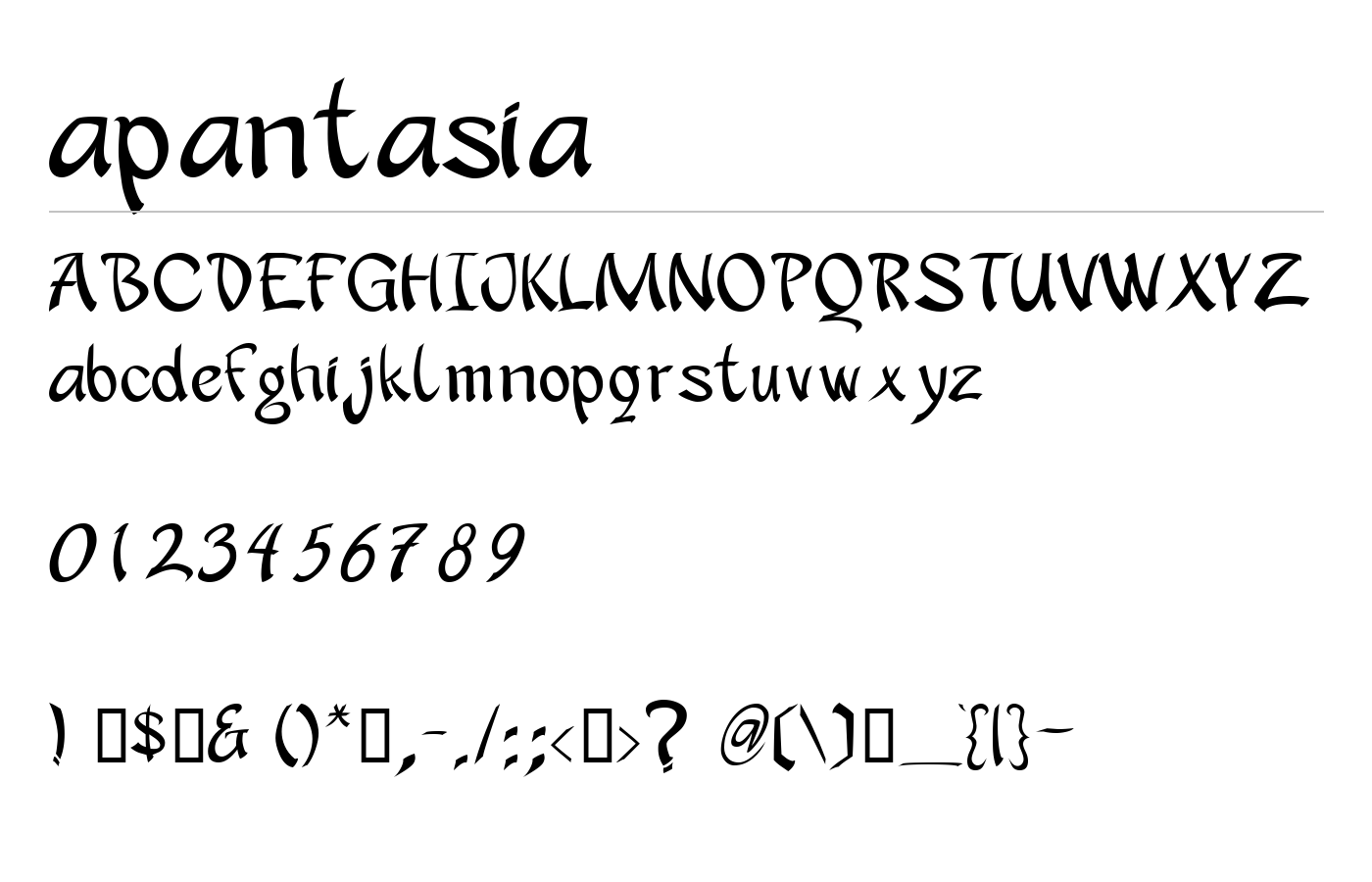
Apantasia is an artistic serif font with a calligraphic feel, featuring a graceful yet slightly irregular stroke style that gives it a handcrafted, whimsical character. Its moderate contrast and unique letterforms, such as the distinctive Q tail and sharp serifs, make it well suited for creative branding, fantasy-themed projects, or elegant headline use where a touch of personality and flair is desired. This font works best in decorative contexts where its expressive style can shine without sacrificing readability.
apantasia Font
About apantasia Font